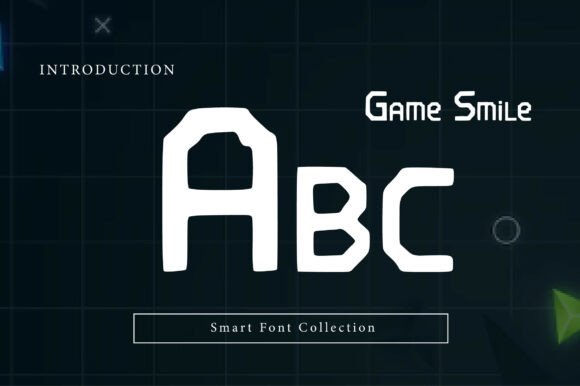
Introducing Game Smile Font: Elevate Your Designs with a Futuristic Twist
In the realm of digital design, typography plays a pivotal role in conveying the essence of a brand or project. The Game Smile font emerges as a beacon of innovation, offering a bold, geometric, and futuristic approach to display typography. As part of the esteemed Smart Font Collection, Game Smile is meticulously crafted to infuse your designs with a high-tech intelligence, making it an ideal choice for those seeking to make a statement in the digital landscape.
Unleashing the Power of Game Smile Font
Game Smile is not just a typeface; it’s an experience. Its clean, innovative letterforms are designed to radiate a sense of precision and modern machinery, perfect for projects that demand a sharp, cutting-edge personality. Whether you’re working on user interface design, crafting identities for tech startups, or composing modern graphic layouts, Game Smile serves as a visual anchor that elevates your project to new heights.
Crafting a Futuristic Aesthetic
The hallmark of Game Smile lies in its geometric and futuristic design. Each letterform is carefully constructed to embody a sense of forward-thinking and innovation. This makes it particularly suited for projects that aim to showcase a brand or product as a frontrunner in the tech industry. The font’s bold and clean lines ensure that your message is not only communicated effectively but also with an unmistakable aura of modernity.
Integration and Design Tips
To truly harness the potential of the Game Smile font, consider pairing it with minimalist layouts that allow its geometric beauty to shine. Complementing the font with tech-focused photography will further enhance its futuristic appeal, creating a cohesive visual narrative that speaks of innovation and precision. For designers and crafters, this combination offers a powerful toolkit for creating stunning visuals that capture the essence of the digital age.
The versatility of Game Smile is one of its most compelling attributes. It’s as effective in logo design for architectural firms as it is in headers for technology blogs. The font’s authoritative and professional look ensures that your brand stands out, conveying a sense of reliability and forward-thinking that is crucial in the fast-paced tech world. This adaptability makes Game Smile a valuable asset for designers who work across various mediums and projects.
Why Choose Game Smile Font?
- High-Tech Aesthetic: Offers a bold, geometric, and futuristic look that is perfect for tech-related projects.
- Versatility: Suitable for a wide range of design applications, from UI design to branding.
- Professionalism: Provides an authoritative and professional appearance, ideal for brands looking to establish a strong digital presence.
- Easy Integration: Seamlessly pairs with minimalist layouts and tech-focused imagery for a cohesive visual impact.
Game Smile font is more than just a typeface; it’s a design statement that propels your projects into the digital dimension with a futuristic flair. Its innovative letterforms, geometric precision, and high-tech intelligence make it an indispensable tool for designers and crafters aiming to leave a mark in the digital world. By integrating Game Smile into your design repertoire, you’re not just choosing a font; you’re embracing a visual language that speaks of innovation, precision, and the future.
So, launch your designs into the digital dimension with Game Smile font, and discover a world where typography meets technology in the most innovative way.